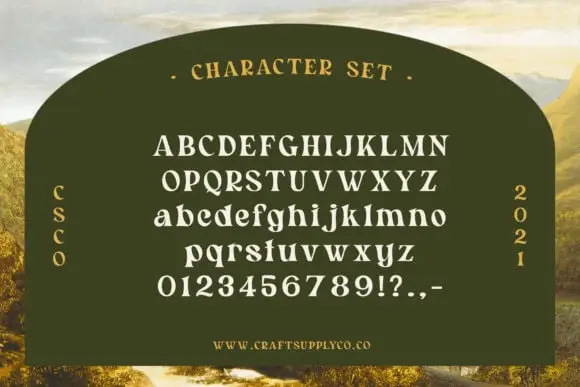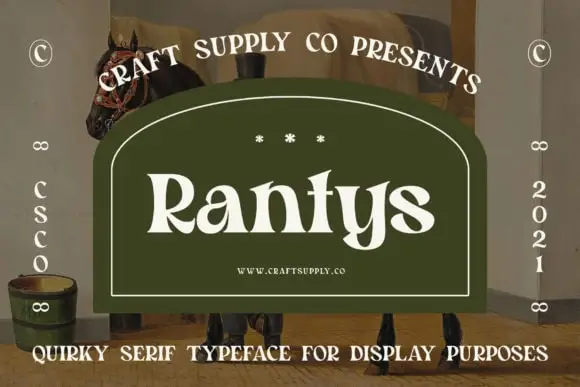
Rantys Font
The Rantys Font is a modern typeface that combines elegance with a touch of uniqueness. Designed for versatility, it is perfect for a variety of applications, including branding, logos, web design, and print materials.
• Multiple font weights for diverse design needs
• Stylish uppercase and lowercase letters
• Numerous ligatures and special characters
• Ideal for creating eye-catching logos and branding materials
• Great for web typography to enhance user experience
• Perfect for print designs including posters and business cards